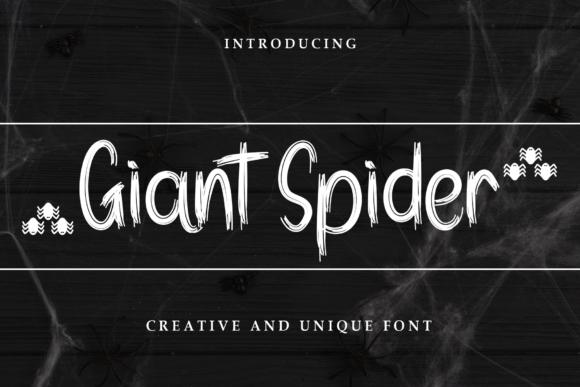
Journey into the world of Giant Spider font, a captivating script typeface born from the creative mind of William Jhordi. This bold and unique display font exudes personality, inviting you to unleash your imagination and create captivating designs that leave a lasting impression. Giant Spider is not just a font; it's an adventure, a chance to explore the extraordinary in the ordinary.
Immerse yourself in the web of creativity, where Giant Spider's enchanting strokes weave magic onto your designs. With its playful and carefree nature, this font dances across your screen, bringing life to your posters, banners, cards, and any other project craving a touch of whimsy. Giant Spider is the perfect tool to express your individuality, turning your words into works of art.
Step into the spotlight with Giant Spider, the font that commands attention. Its distinctive style ensures your designs stand out from the crowd, captivating your audience from the very first glance. Whether you're a seasoned designer or just starting your creative journey, Giant Spider is your guide, leading you down a path of visual storytelling.
With Giant Spider, the possibilities are endless. Let your creativity soar as you craft stunning posters that pop, banners that beckon, and cards that convey heartfelt messages. The versatility of Giant Spider knows no bounds, making it the perfect choice for any project that demands a touch of uniqueness.